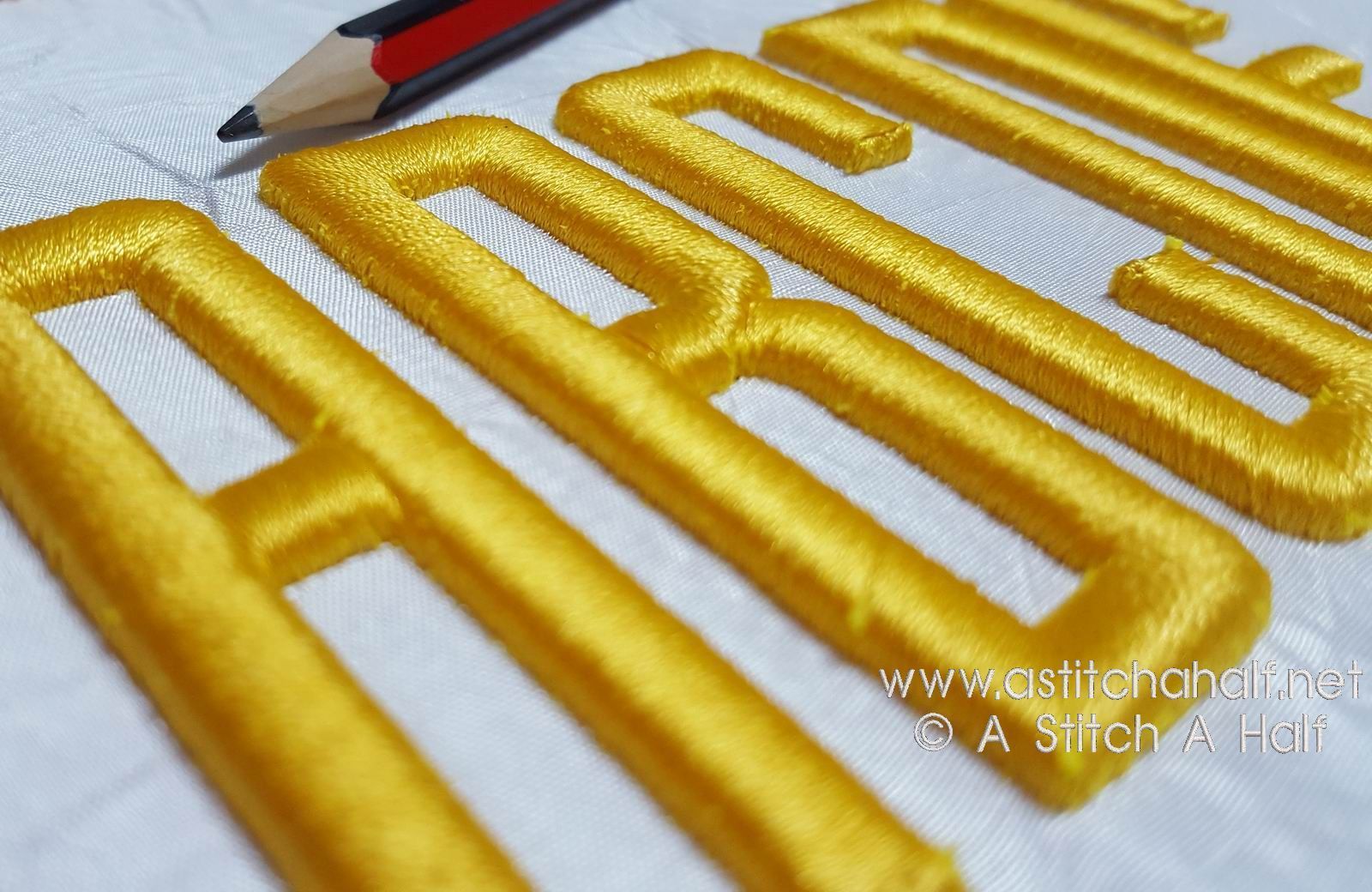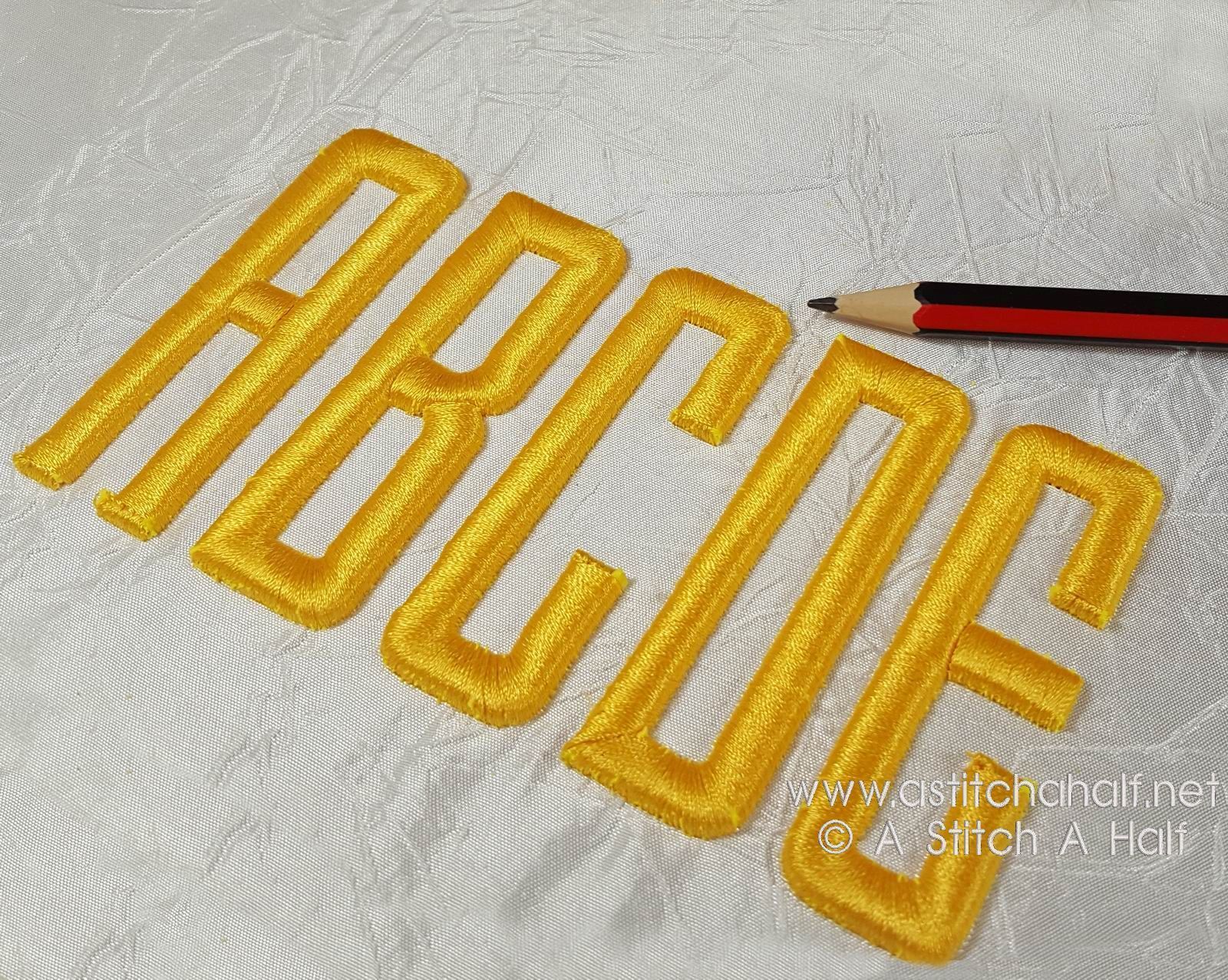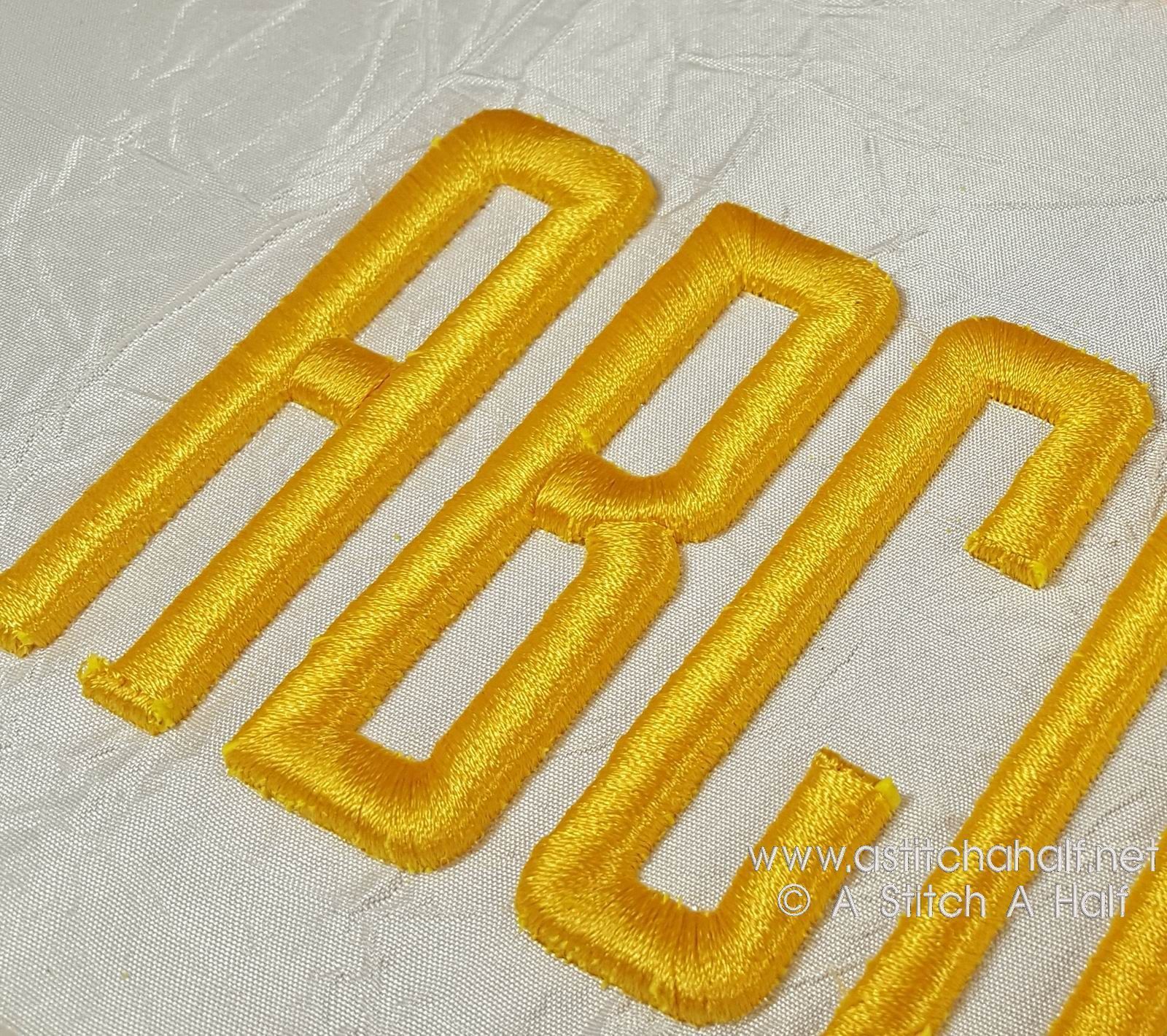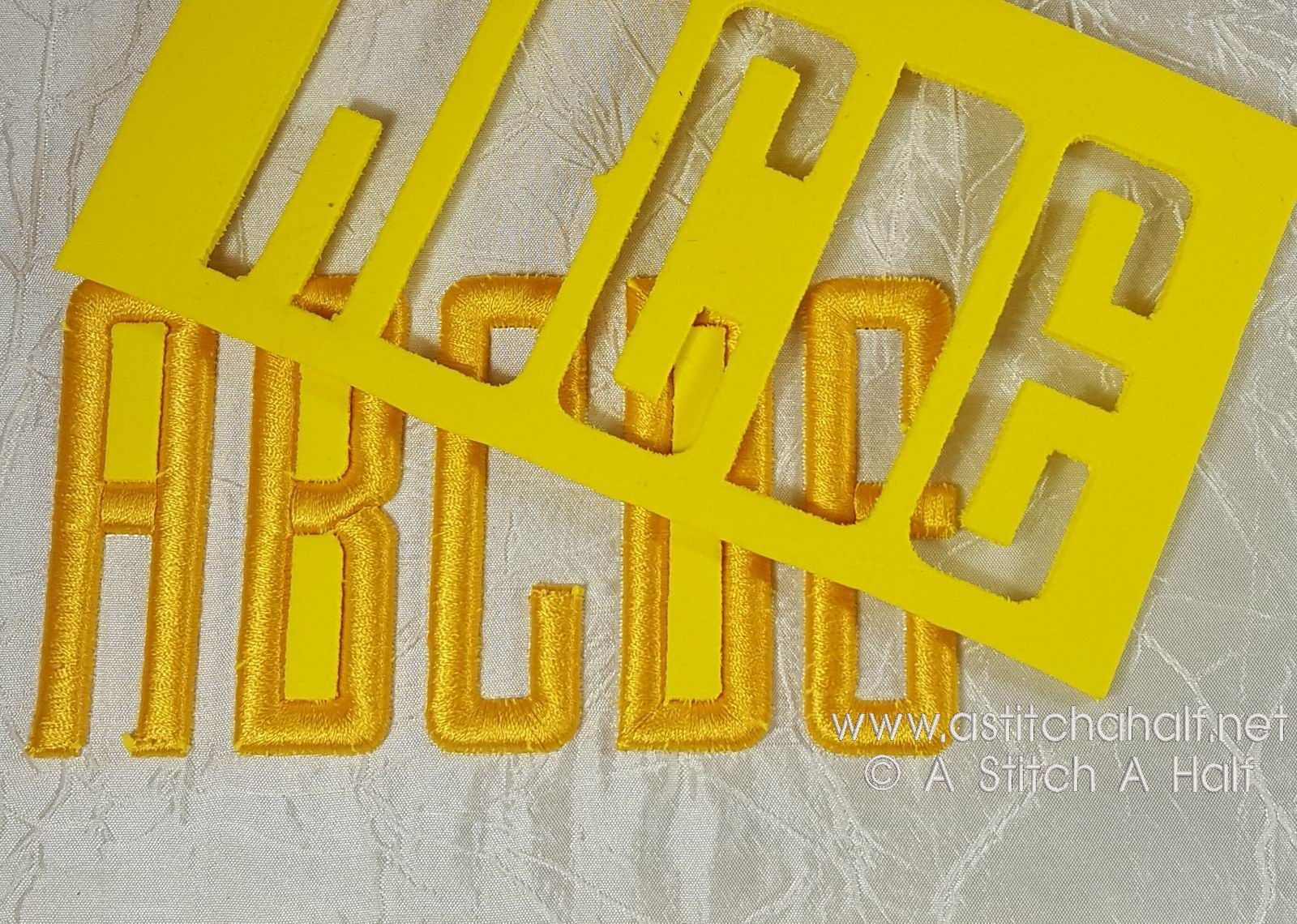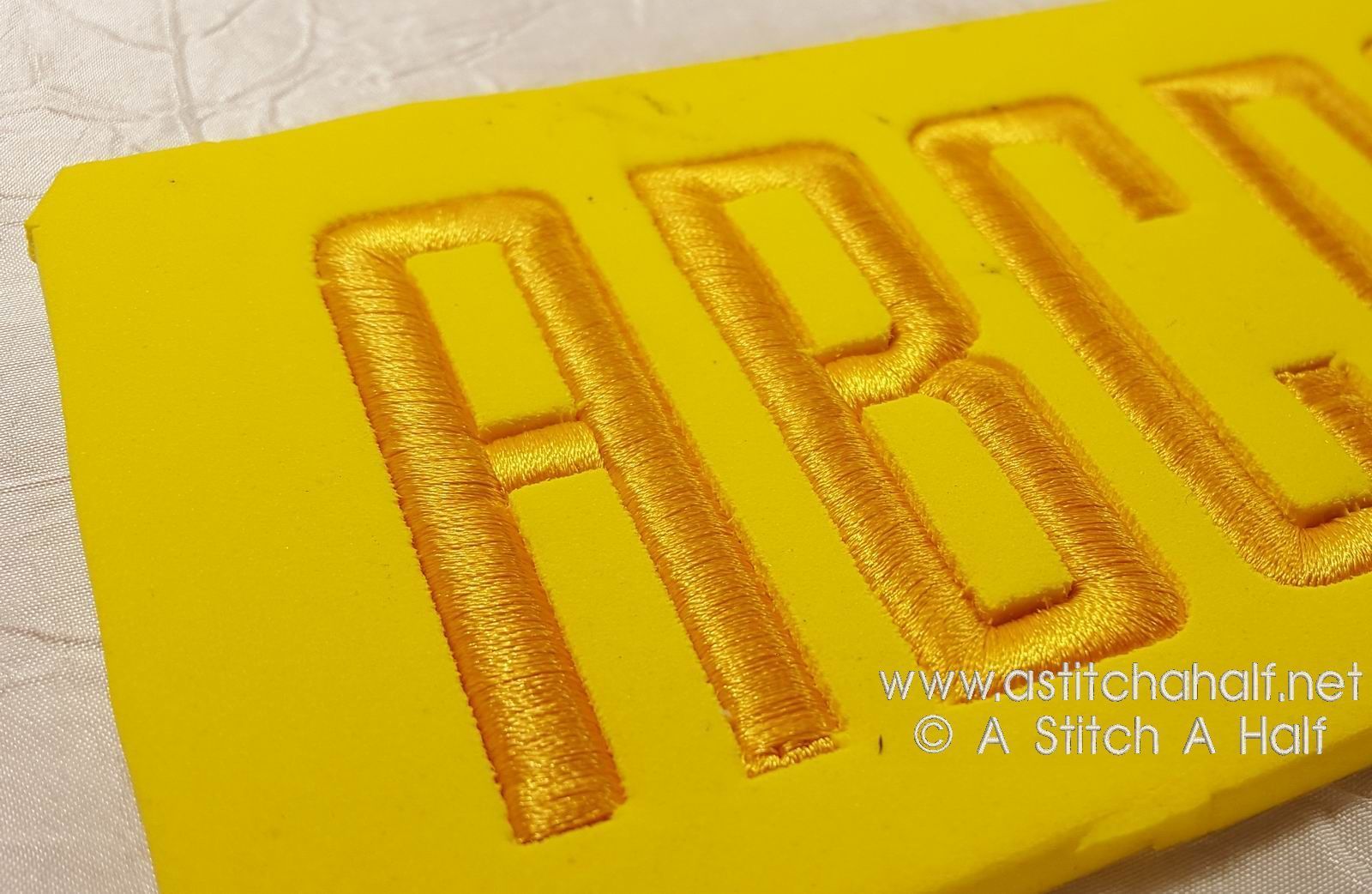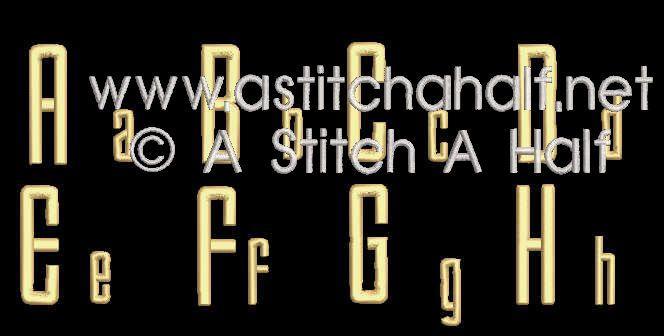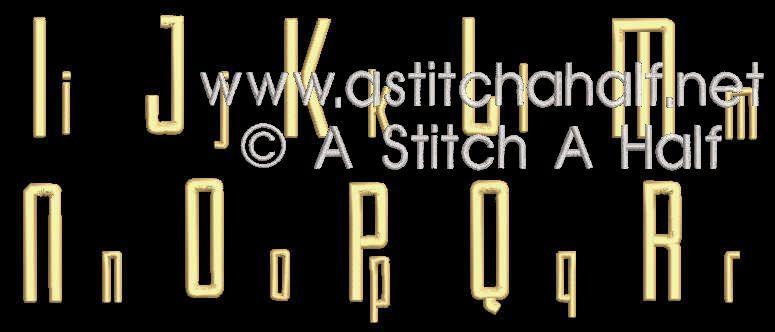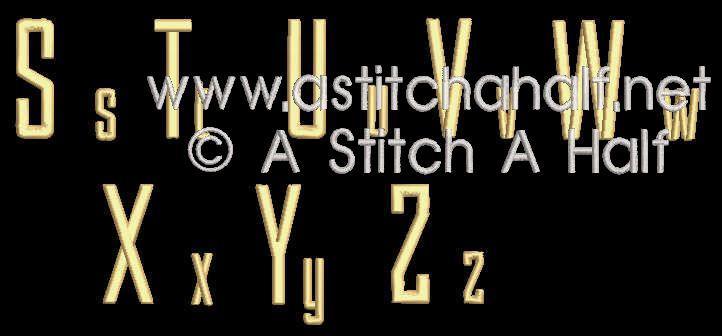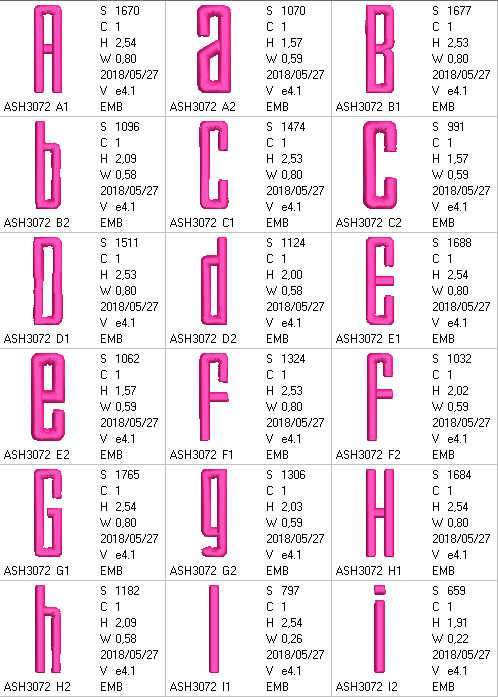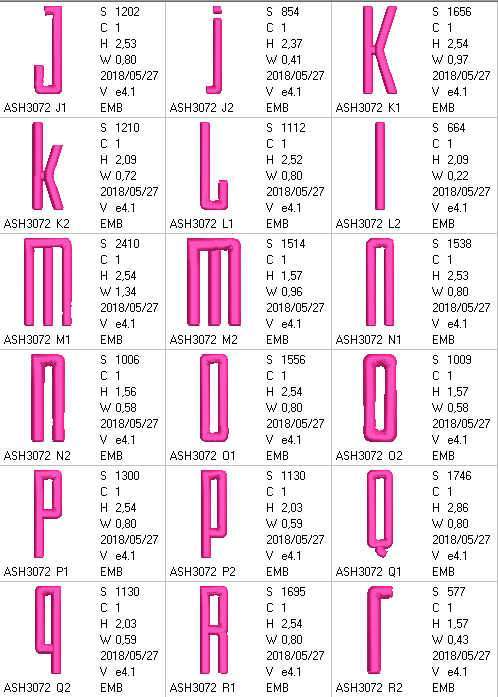
Your FUN 3D Puffy Foam Font is here. It looks like it can just jump off the screen.
Font Size (height): 2.5" (65mm)
More on Puffy Foam:
3D Embroidery is the art of using foam to raise part of the embroidered design to create a dramatic effect.
You will be laying down a piece of 3-D foam, and simply embroider the letters as usual. The needle penetrations perforate the foam and allow for the excess to be pulled away upon completion of the embroidery.
- No Foam... No worries. You still get a good puffy look with this Fantastic versatile Font.